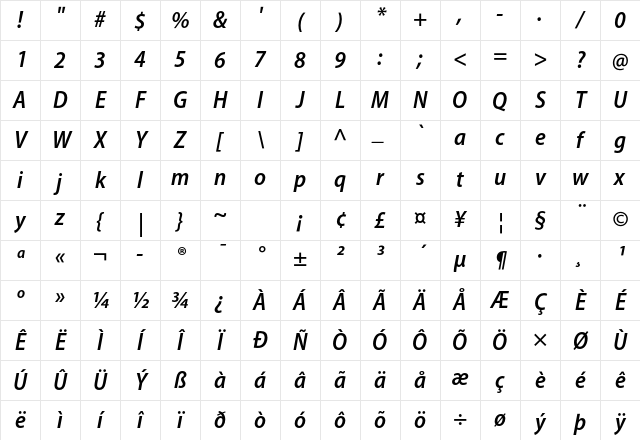
Myriad Pro Semibold SemiCondensed Italic
Style: Semibold SemiCondensed Italic
Designer: Robert Slimbach and Carol Twombly
Design Context for Myriad Pro
Myriad Pro is a composed and adaptable typeface that performs quietly and consistently across a wide range of design contexts. The slanted form adds forward momentum and visual energy. Its bold stroke weight gives it real presence on the page. Its narrow stance lets it pack a punch even in space-constrained designs.